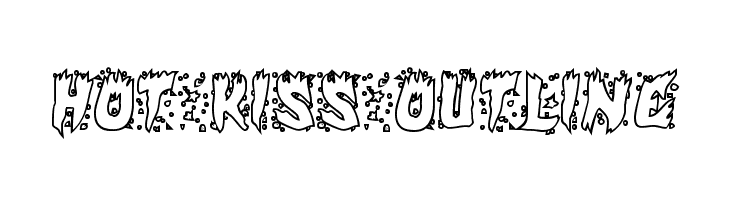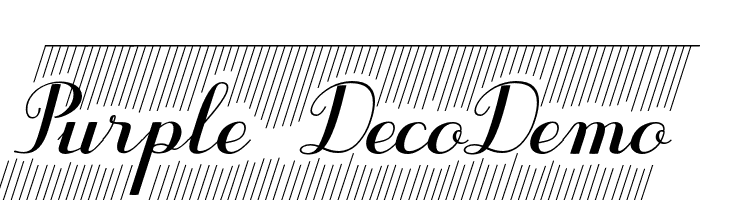
An ornate Blackletter-style font with intricate details and sharp serifs.
A bold, decorative font with gothic-inspired ornamental details.
A sophisticated serif font with high contrast and elegant details.
A bold, decorative font with vintage cut-out details.
A decorative, medieval-inspired font with bold, flowing strokes and intricate details.
A whimsical and decorative font with playful curves and intricate details.
A bold, playful outline font with jagged edges and dot details, perfect for dynamic designs.
A bold, decorative typeface with intricate details and ornate flourishes.
A bold, gothic-inspired font with intricate, ornamental details.
An elegant script font with graceful curves and intricate details.